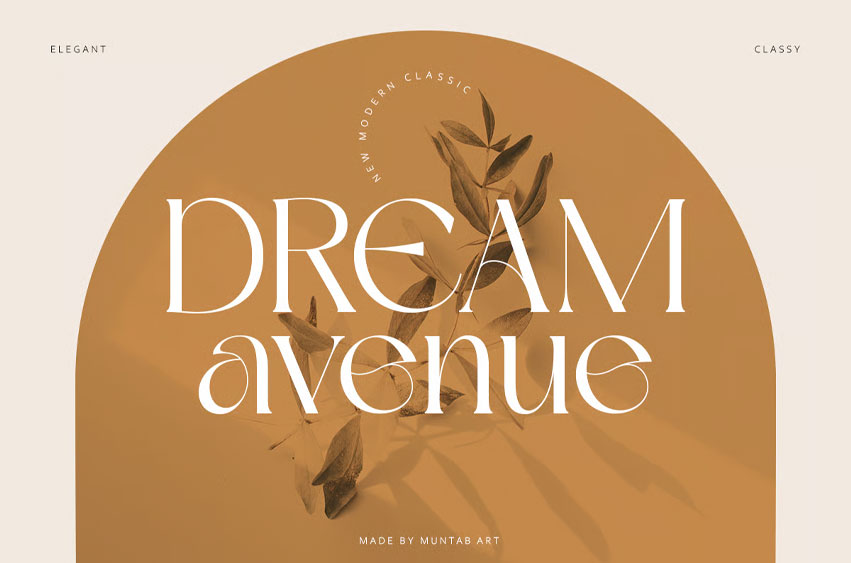
Dream Avenue Font
Dream Avenue Font includes uppercase letters, lowercase letters, numerals, a large range of punctuation.
Serif font with modern classic style. Created for poster, web design, branding, illustrations, badges and some other works.